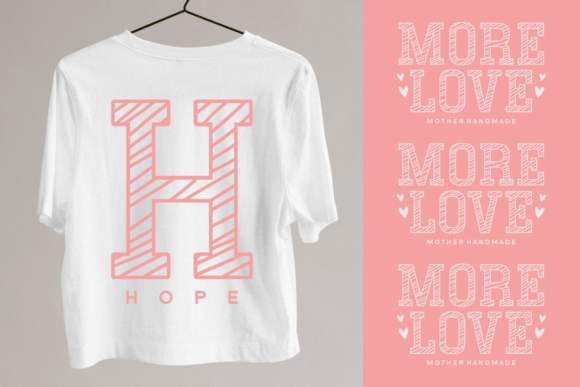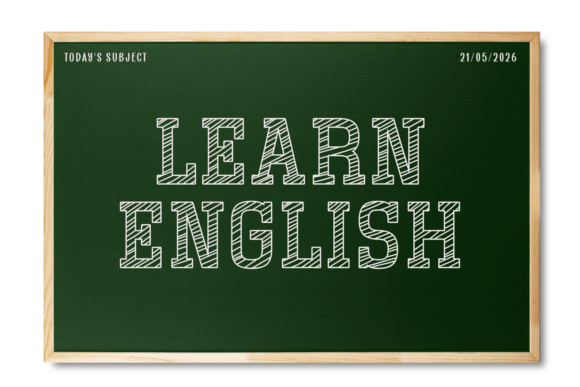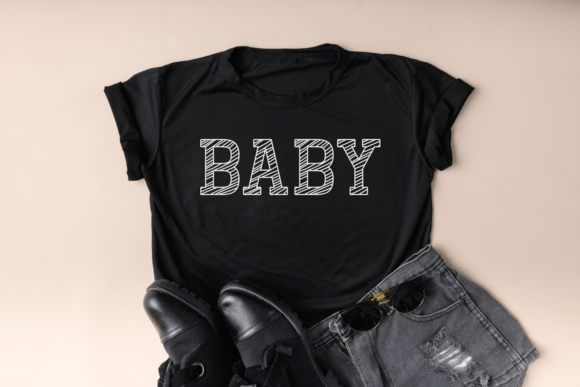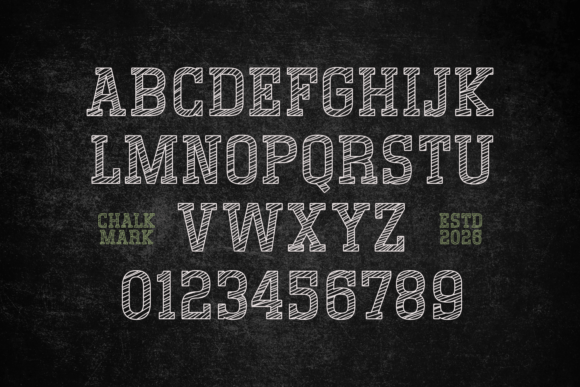
Unleashing Your Inner Creative
Have you ever stared at a blank page, waiting for the perfect font to spark your imagination? For many designers, the hunt for the perfect typography is a never-ending quest. But what if you stumbled upon a font that embodies the essence of individuality and distinctive style? Enter the Chalk Mark Font, an authentic and rusty charm that’s reminiscent of classic varsity fonts.
This beautifully crafted font is more than just letters on a screen; it’s a tastefully curated genre of design elements that strike a balance between vintage, old-school appeal and modern, digital sleekness. As a designer, you’ll appreciate the unique chalk-style strokes that add a touch of trademark aesthetic to your work.
Whether you’re a minimalist with a penchant for retrospection or a creator with an eye for edgy style, the Chalk Mark Font is a bold and unique statement that’s sure to embolden your ideas and set you apart from the crowd.
Chalk Mark Font Key Features
- Unique Characteristics: Chalk Mark Font features a distressed, hand-drawn look with subtle texture and imperfections, giving it a unique and artistic feel.
- Font Weight: The font has a medium to bold weight, making it ideal for headings, titles, and emphasis in designs.
Chalk Mark Font Review
Overall, I found the Chalk Mark font to be a nice addition to any design project. ✨ Its clean, hand-written feel is reminiscent of classic chalkboard lettering, which can add a touch of nostalgia to your work.
- The font’s high x-height makes it easy to read, even at smaller sizes.
- It has a versatile feel, suitable for both formal and informal projects.
- The font’s subtle imperfections give it a unique, hand-crafted feel.
- ⚠️ The font may not be suitable for projects that require a highly legible font at very small sizes.
- ⚠️ Some users may find the font’s imperfections distracting or difficult to read.
- ⚠️ The font’s lack of a bold weight may limit its use in certain design contexts.
In terms of overall impression, I would give the Chalk Mark font 3.5 out of 5 stars. While it has its limitations, I think it’s a great choice for designers looking to add a touch of personality to their work. With a little creativity and experimentation, I think this font has the potential to be a real standout in the right project.
Chalk Mark Font: A Practical Application Guide
Tips for Getting the Most Out of Chalk Mark Font
Experiment with different font sizes and styles to achieve a distressed or worn look. Use the font in combination with other design elements, such as textures and backgrounds, to create a unique and eye-catching design.
The Chalk Mark font is commonly used for:
- Distressed or worn text effects
- Grungy or vintage-inspired designs
- Handwritten or calligraphic text effects